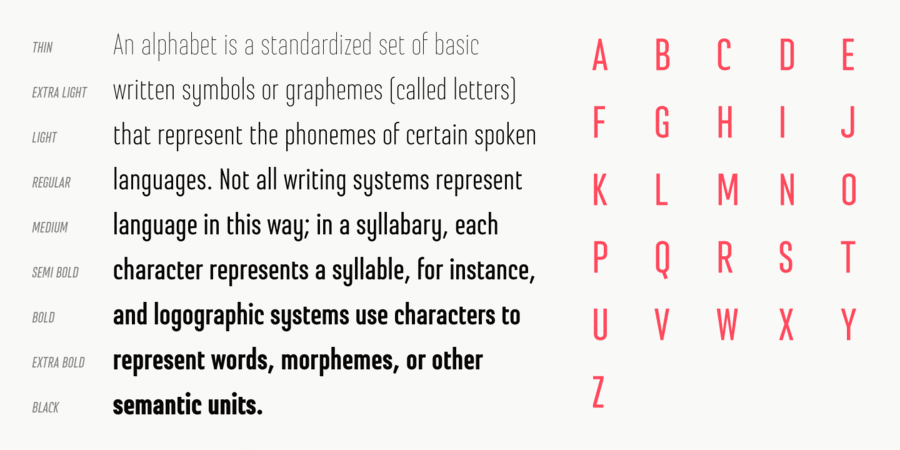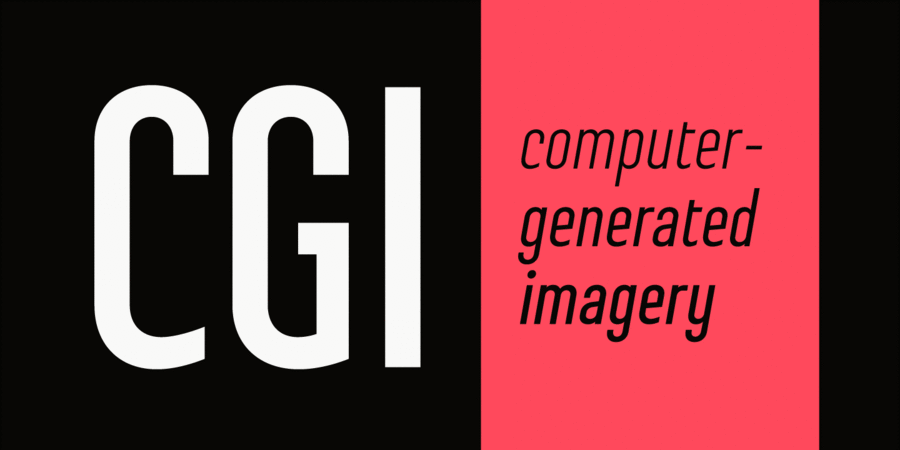
About StecloThis is a semi-closed narrowed display sans-serif typeface with pronounced technical character. It comes in 9 weights from Thin to Black accompanied by corresponding oblique styles. Steclo features rich language support including pan-European Latin and basic Cyrillic glyph sets. The typeface was designed by Oleh Lishchuk in 2021.